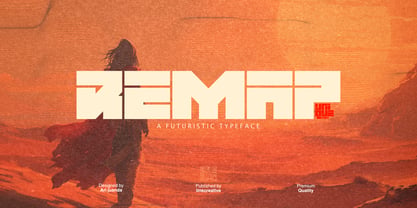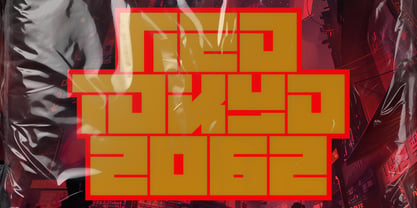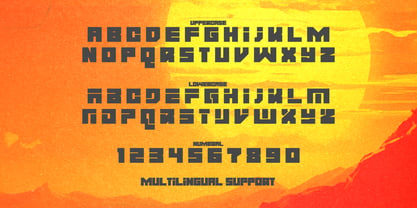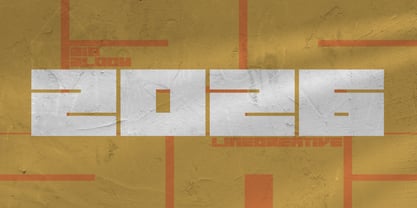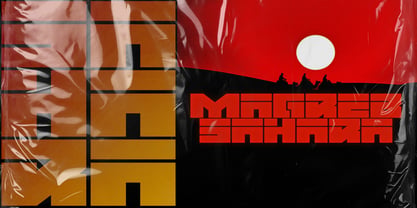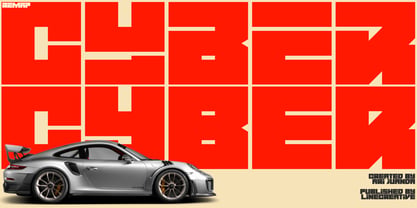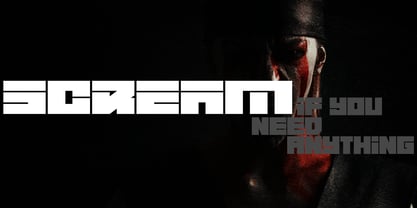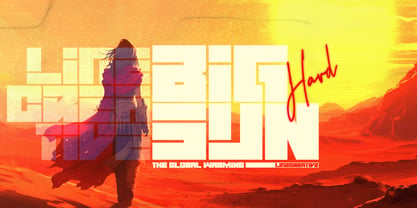
Remap
by Linecreative
The Remap Font Family was designed by Ari Juanda and published by Linecreative. Remap contains 1 styles. More about this family
Remap is a futuristic display typeface designed for headlines, titles, logos, branding, and contemporary typographic applications. Drawing inspiration from cyber and futuristic visual culture, Remap features bold, structured letterforms with a strong and confident presence. The typeface is built in a bold weight with an all-caps design as its primary form. The lowercase characters are precisely sliced, creating a refined futuristic aesthetic while maintaining clarity and readability. This design approach gives Remap a distinctive technological character suitable for modern and forward-looking design projects. Remap includes a comprehensive character set with punctuation, numerals, multilingual language support, and ligature characters, providing flexibility for professional use across a wide range of design contexts. It is well suited for technology branding, digital interfaces, sci-fi themes, esports visuals, and bold contemporary identities.